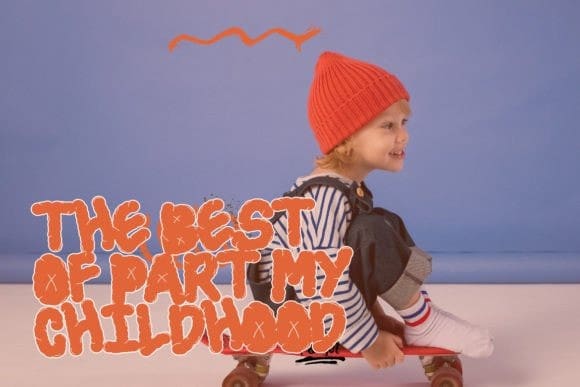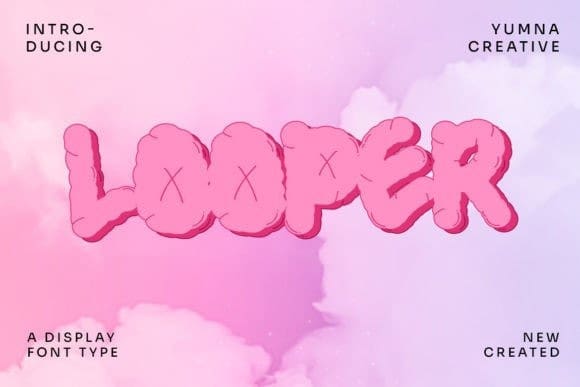
Looper Display Font
Looper Display Font is a quirky and imaginative display font that captures the whimsy and creativity of childhood. Its doodle-inspired letterforms and playful curves create a sense of wonder and fun, making it an ideal choice for children’s books, coloring books, and other imaginative design projects.